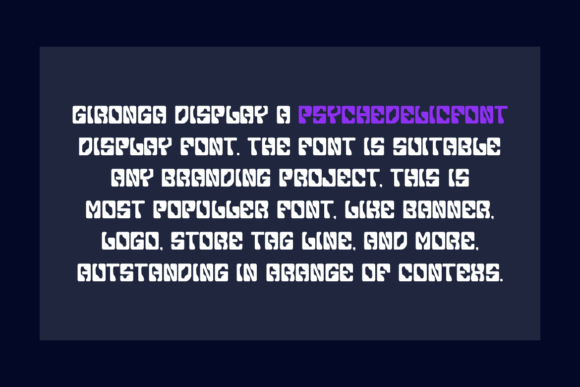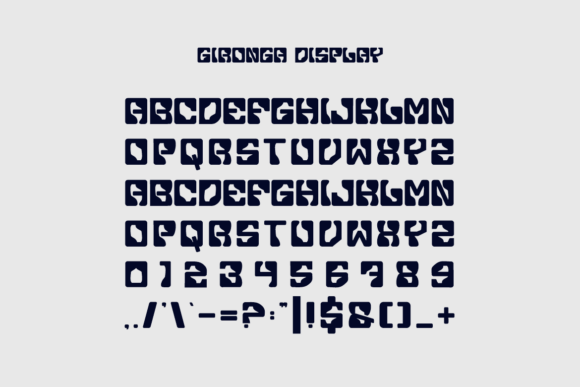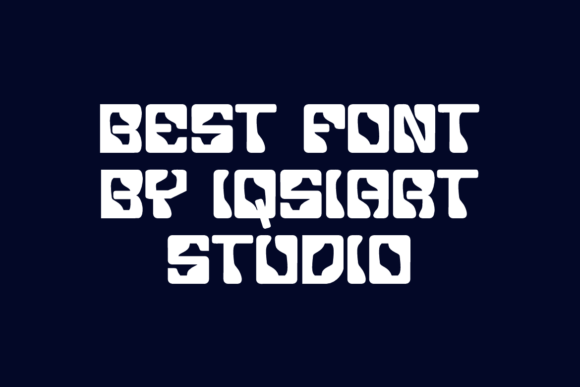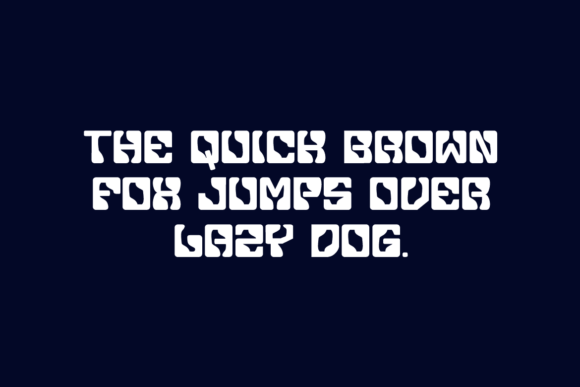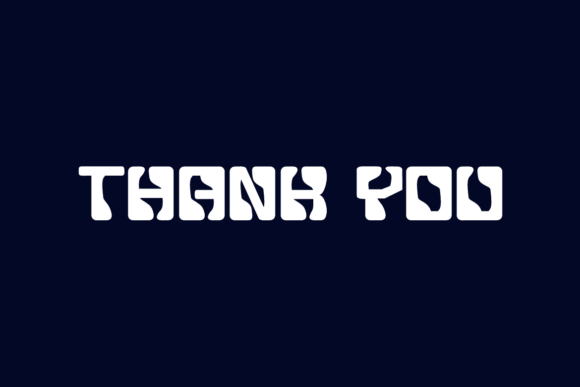
Introducing Gironga Display: The Ultimate Psychedelic Font for Bold Designs
In the world of typography, few fonts capture the essence of the psychedelic era as perfectly as Gironga Display. This bold and eccentric typeface is a masterful blend of retro-futurism and modern playfulness, making it the ideal choice for designers and crafters looking to add a touch of vintage flair to their projects. With its chunky, irregular letterforms and eye-catching aesthetic, Gironga Display is poised to become the go-to font for anyone seeking to make a statement.
The Inspiration Behind Gironga Display
Gironga Display draws inspiration from the vibrant and experimental spirit of the psychedelic era, which emerged in the 1960s and continued to influence design and art throughout the decades. This font’s unique character is a nod to the era’s iconic typography, characterized by bold colors, distorted shapes, and a sense of liberation and creativity. Gironga Display’s designer aimed to distill the essence of this era into a modern typeface that would be both nostalgic and fresh.
Key Features of Gironga Display
So, what sets Gironga Display apart from other fonts? Here are some of its key features:
- Chunky, irregular letterforms: Gironga Display’s letters are bold, chunky, and intentionally irregular, giving the font its distinctive psychedelic feel.
- Retro-futuristic aesthetic: The font’s design combines vintage and futuristic elements, creating a unique look that’s both nostalgic and forward-thinking.
- Playful, energetic vibe: Gironga Display exudes a sense of playfulness and energy, making it perfect for designs that require a bold and attention-grabbing approach.
Use Cases for Gironga Display
Gironga Display’s versatility makes it suitable for a wide range of design projects, including:
- Eye-catching posters: Whether you’re promoting a music festival, a sale, or an event, Gironga Display is sure to grab attention and leave a lasting impression.
- Groovy branding: Add a touch of psychedelic flair to your brand’s identity with Gironga Display, perfect for businesses that want to stand out from the crowd.
- Music album covers: Gironga Display’s retro-futuristic aesthetic makes it an excellent choice for music album covers, especially for genres like psychedelic rock, electronic, and indie.
- Creative projects: From social media graphics to packaging design, Gironga Display is the perfect font for any project that demands a bold and creative approach.
Why Choose Gironga Display?
With so many fonts available, why choose Gironga Display? Here are a few reasons:
- Unforgettable visual impact: Gironga Display’s unique design ensures that your project will stand out and be remembered.
- Vintage vibe with a modern twist: The font’s retro aesthetic is updated with a modern playfulness, making it suitable for a wide range of design applications.
- Easy to use and customize: Gironga Display is designed to be user-friendly, allowing you to easily customize the font to fit your project’s needs.
Gironga Display is more than just a font – it’s a design statement. With its bold, eccentric, and playful aesthetic, this typeface is perfect for designers and crafters looking to add a touch of psychedelic flair to their projects. Whether you’re working on a poster, branding, or a creative project, Gironga Display is sure to deliver unforgettable visual impact. So why settle for ordinary typography when you can make a statement with Gironga Display?
Get Ready to Make a Statement with Gironga Display
Ready to experience the bold, playful, and energetic vibe of Gironga Display? Download the font today and start creating designs that demand attention. With Gironga Display, you’ll be able to:
- Create eye-catching posters and flyers that grab attention.
- Develop a unique brand identity that stands out from the crowd.
- Design music album covers that reflect the psychedelic spirit.
- Produce creative projects that showcase your personality and style.
Join the ranks of designers and crafters who are already making a statement with Gironga Display. Get ready to unleash your creativity and take your designs to the next level with this bold and unforgettable font.